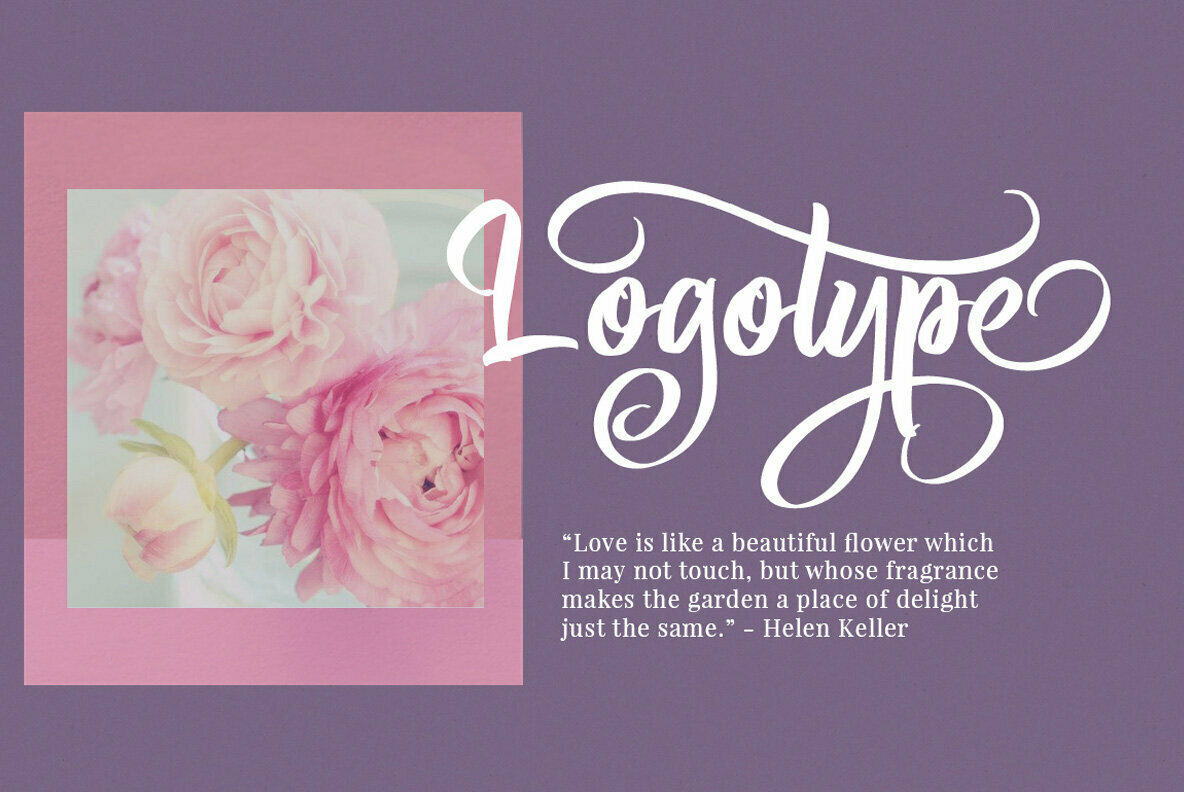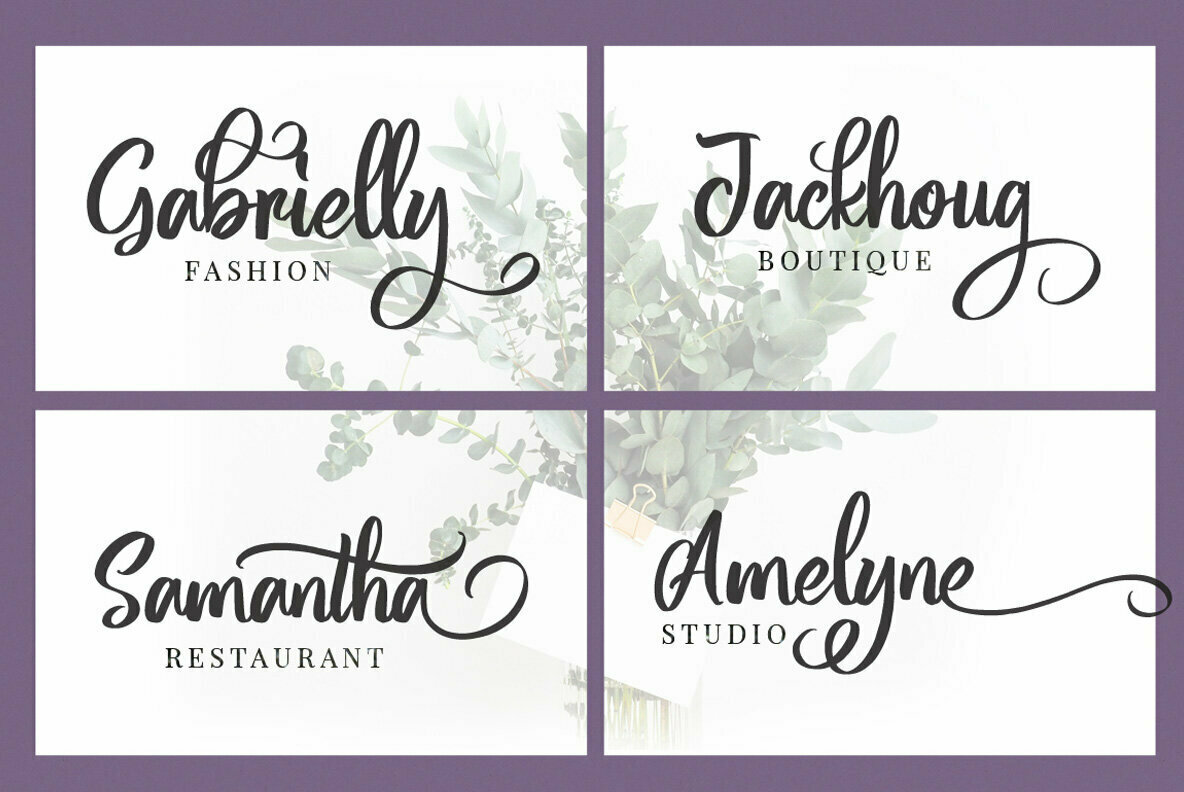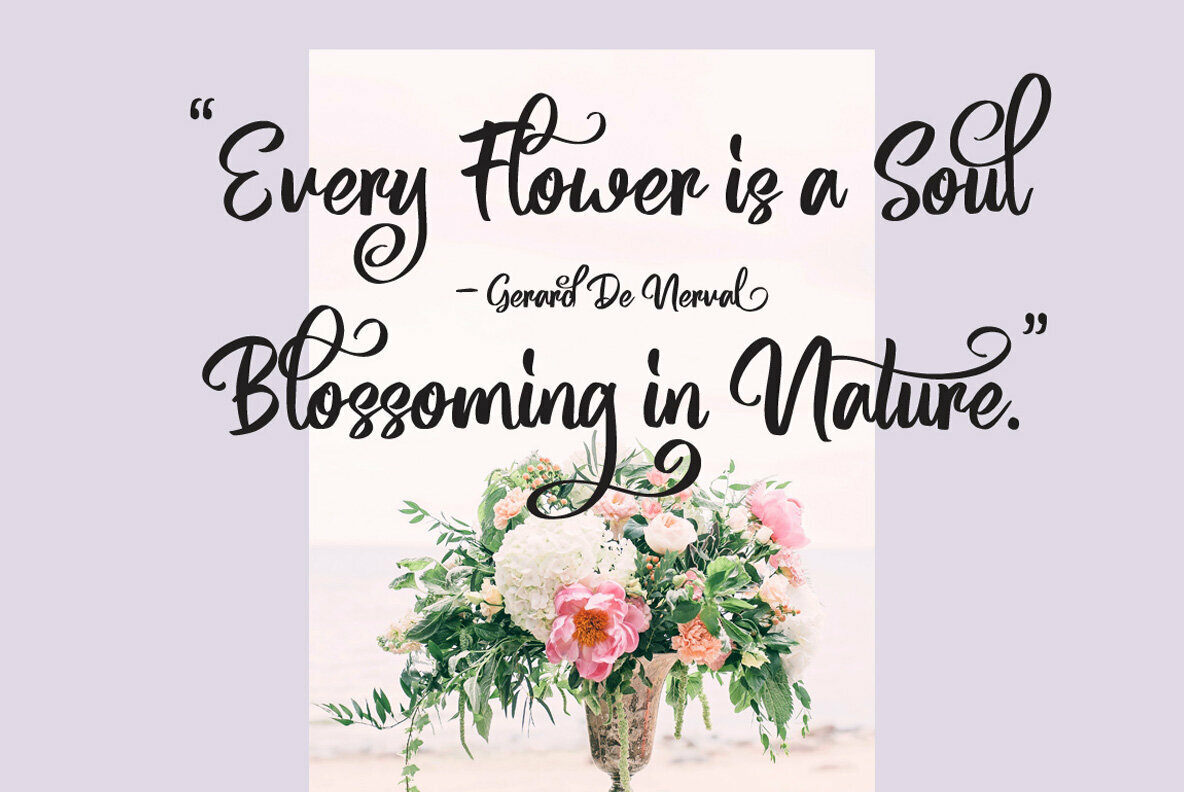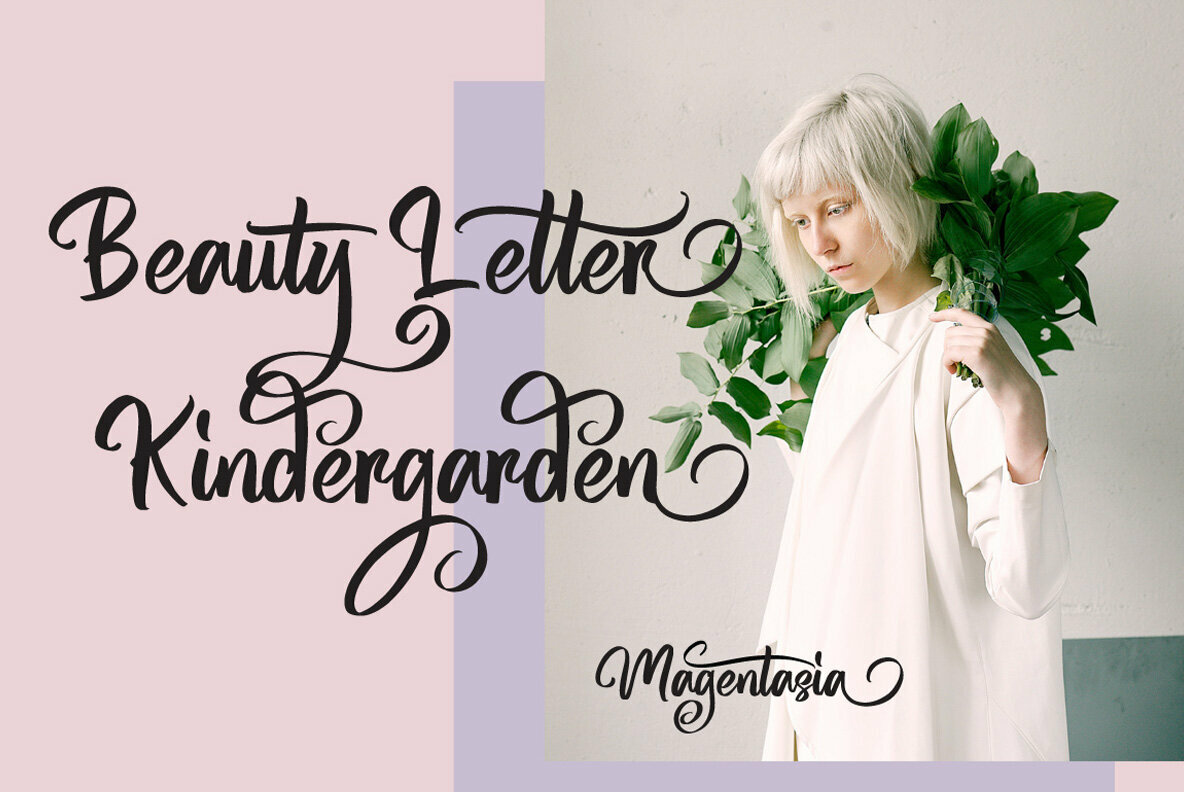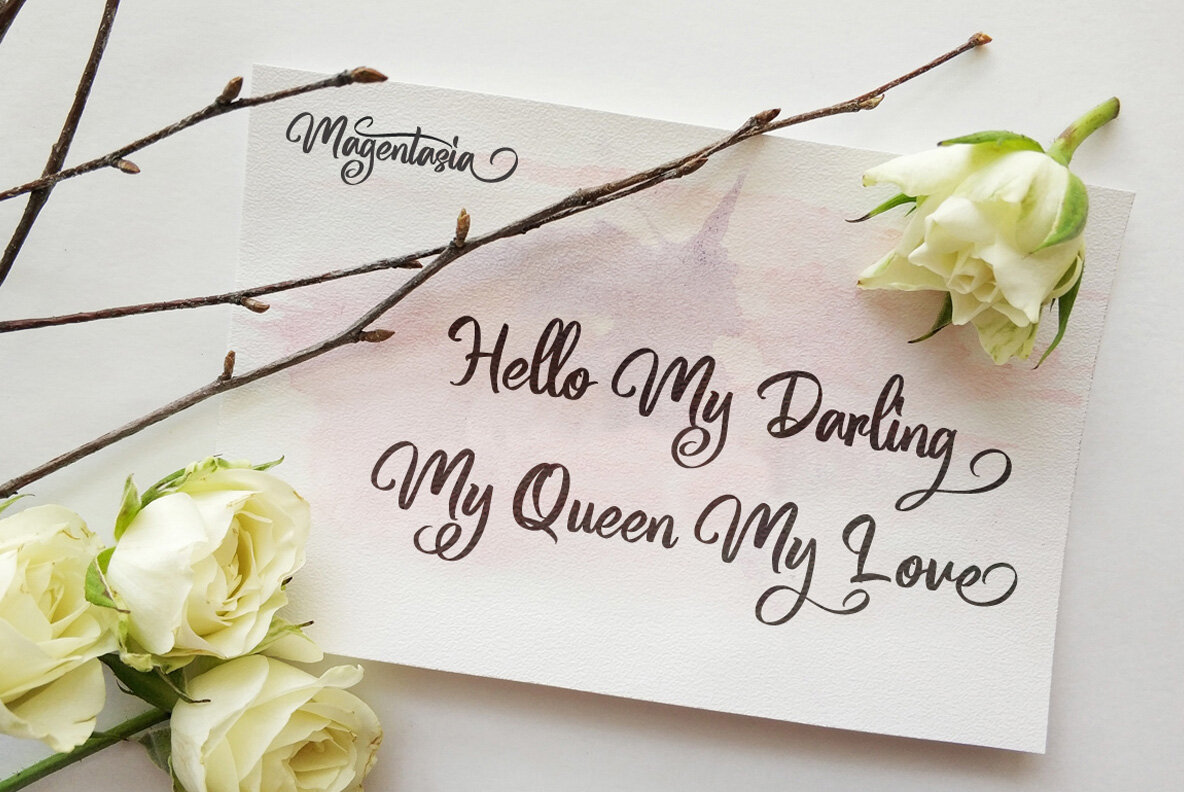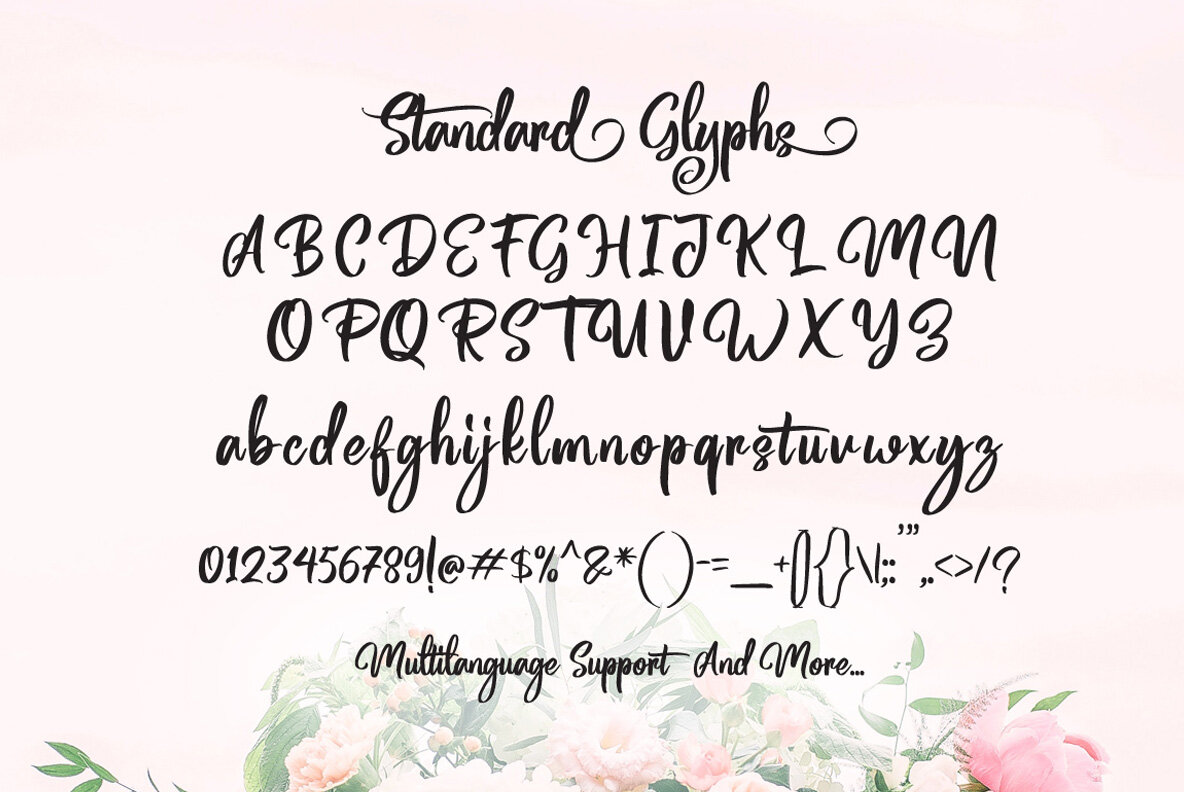
Magentasia Font
Magentasia serves as a delightful brush script font, elegantly echoing the nuances of handlettering brush style. A versatile choice, it fits various design needs like wedding invitations, logos, and branding elements. With opentype features embedded, Magentasia enriches your design toolkit, offering a unique blend of style and functionality.Magentasia: Handlettered Brush Script Excellence